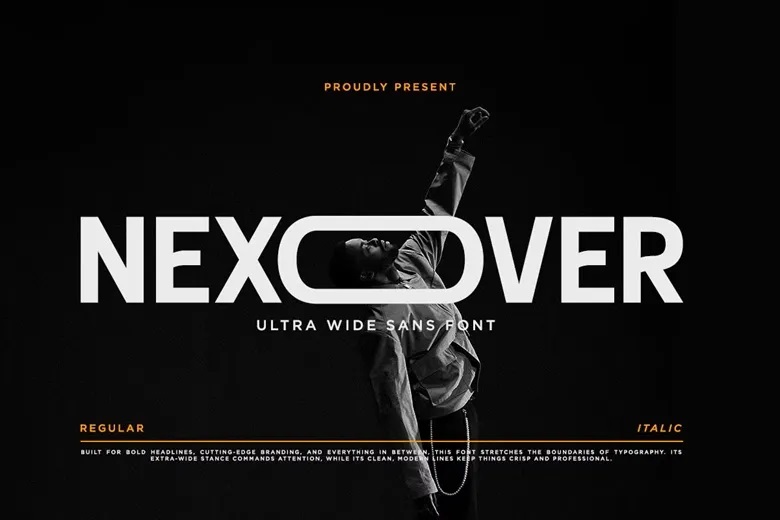
Nexover Font
Nexover is a new ultra-wide sans serif font with a modern and futuristic style. Designed for posters, headlines, branding and editorial usage, it uses clean lines and strong geometric shapes and features unique alternate characters which produces a striking visual impact.
Perfect for branding, logo, website, social media, headline, and even sentences. This font supports upper and lower case letters and includes several multilingual accents as well as punctuation and symbols.
Nexover Sans Serif Font